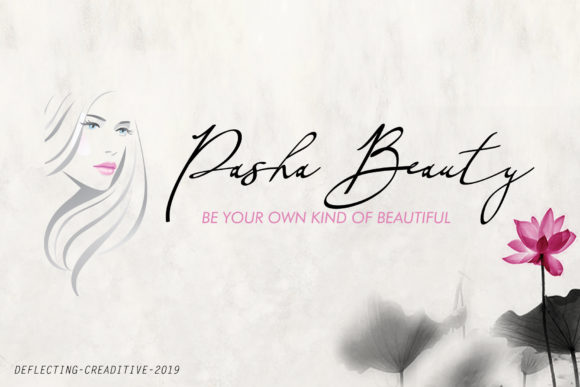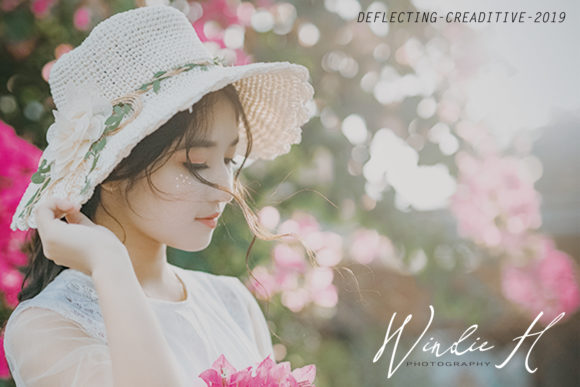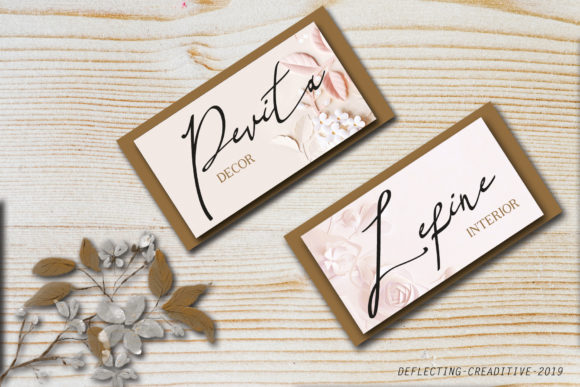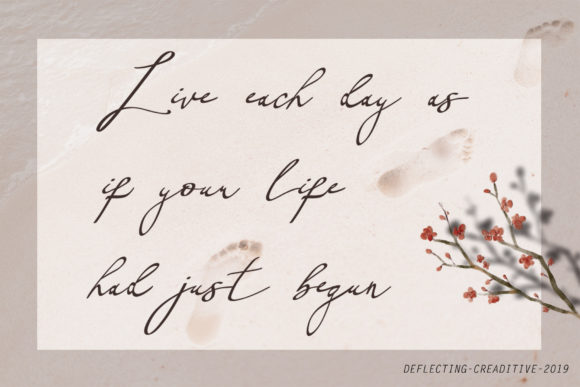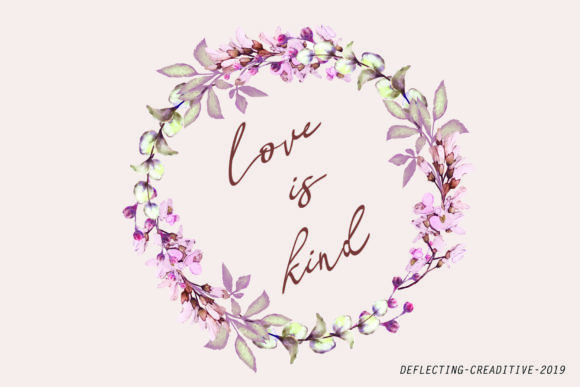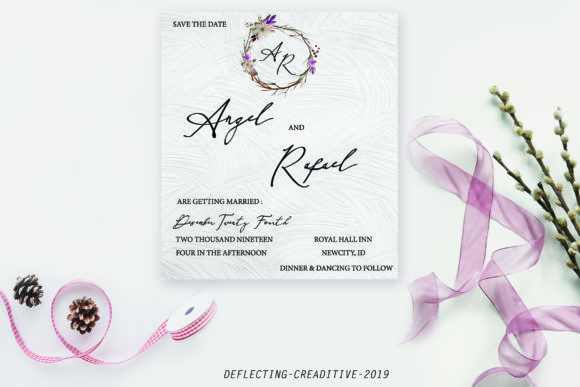
Introducing Deflecting Font: The Ultimate Handwritten Script for Modern Design
In the world of typography, a new font has emerged that’s making waves with its fashionable and quirky appeal. Meet Deflecting Font, a handwriting font that exudes a sexy and stylish touch, perfect for designers and crafters looking to add a personal touch to their projects. In this article, we’ll dive into the world of Deflecting Font, exploring its unique features, and what makes it a must-have for modern design.
The Story Behind Deflecting Font
The Deflecting Font was created with a singular goal in mind: to craft a font that looks as close to a natural handwritten script as possible. The result is a beautiful, flowing script that’s both elegant and effortless. With its unique blend of curves and lines, Deflecting Font is sure to capture the attention of anyone looking for a font that’s a little bit different.
What Sets Deflecting Font Apart
So, what makes Deflecting Font stand out from the crowd? Here are just a few features that set it apart:
- Natural Handwritten Look: Deflecting Font was created to mimic the look of natural handwriting, with subtle imperfections and variations that give it a human touch.
- Quirky and Fashionable: This font is not your average, run-of-the-mill script. Deflecting Font has a quirky, fashionable vibe that’s perfect for designers and crafters looking to add some personality to their work.
- Sexy and Stylish: Let’s face it – Deflecting Font is a font that’s sure to turn heads. Its sexy, stylish curves make it perfect for projects that require a touch of sophistication.
Using Deflecting Font in Your Designs
So, how can you use Deflecting Font in your designs? The possibilities are endless! Here are a few ideas to get you started:
- Wedding Invitations: Add a touch of elegance and sophistication to your wedding invitations with Deflecting Font.
- Branding and Packaging: Use Deflecting Font to add a personal touch to your brand’s packaging and marketing materials.
- Stationery and Paper Crafts: Deflecting Font is perfect for paper crafters and stationery enthusiasts looking to add a touch of personality to their projects.
Tips for Getting the Most Out of Deflecting Font
Here are a few tips for getting the most out of Deflecting Font:
- Experiment with Different Sizes: Deflecting Font looks great in a variety of sizes, from large headings to smaller body text.
- Pair it with Other Fonts: Try pairing Deflecting Font with other fonts to create a unique and eye-catching look.
- Use it to Add Emphasis: Use Deflecting Font to add emphasis to key words or phrases in your designs.
In conclusion, Deflecting Font is a game-changer for designers and crafters looking to add a touch of personality to their projects. With its natural handwritten look, quirky and fashionable vibe, and sexy and stylish curves, this font is sure to turn heads. Whether you’re working on a wedding invitation, branding project, or paper craft, Deflecting Font is the perfect choice. So why wait? Download Deflecting Font today and start adding a touch of elegance and sophistication to your designs!
Deflecting Font – The Perfect Choice for Modern Design
In today’s fast-paced world of design, it’s easy to get lost in a sea of sameness. That’s why Deflecting Font is such a breath of fresh air. With its unique blend of style, personality, and elegance, this font is sure to make your designs stand out from the crowd. So why settle for boring, generic fonts when you can add a touch of sophistication and style with Deflecting Font?